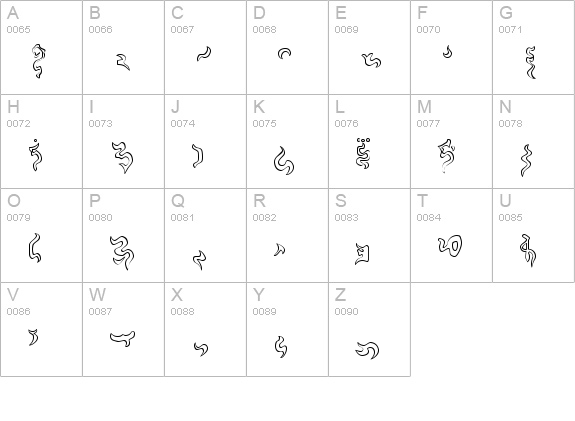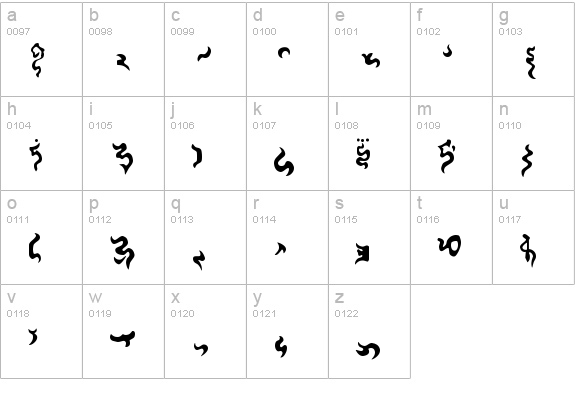
Modern vulcan 1.1 Font Details
Modern vulcan 1.1 font is a sleek and sophisticated typeface that exudes contemporary charm and style. With its clean lines and sharp edges, this font is perfect for giving your designs a modern and professional look. Whether you're creating a sleek logo, designing a cutting-edge website, or crafting eye-catching marketing materials, Modern vulcan 1.1 font is sure to make a bold statement. Best of all, Modern vulcan 1.1 font is available for free download at FontsMarket.com. This means you can easily access this stylish font and use it in your projects without breaking the bank. Don't miss out on the opportunity to add a touch of modern elegance to your designs with Modern vulcan 1.1 font - download it today and take your creations to the next level!